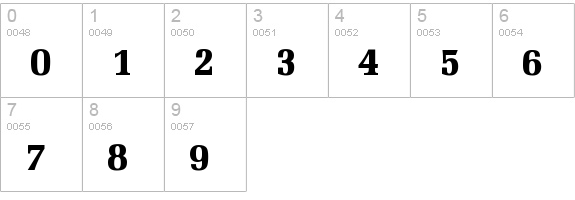
Melmac-Bold is a strong, high-contrast variant in the Melmac typeface family \xE2\x80\x94 well suited to headlines, attention-grabbing titles, and strong calls-to-action.
Introducing Melmac-Bold font, a bold and striking typeface that exudes modernity and sophistication. With its clean lines and strong presence, Melmac-Bold is perfect for making a statement in headlines, titles, and branding materials. Its sleek design ensures readability and impact, making it a versatile choice for a wide range of design projects. And the best part? Melmac-Bold is available for free download at FontsMarket.com! Now you can elevate your designs with this stylish and contemporary font without breaking the bank. Don't miss out on the opportunity to add Melmac-Bold to your font collection and take your projects to the next level. Download it today and start creating with confidence.